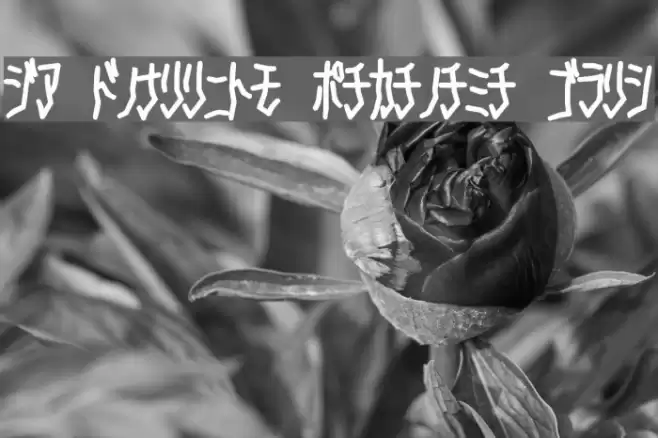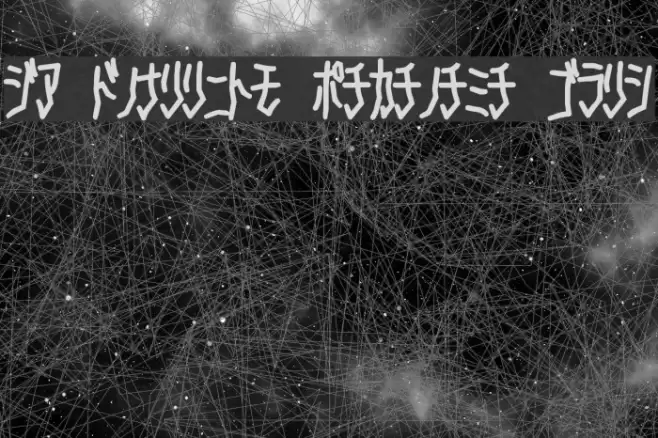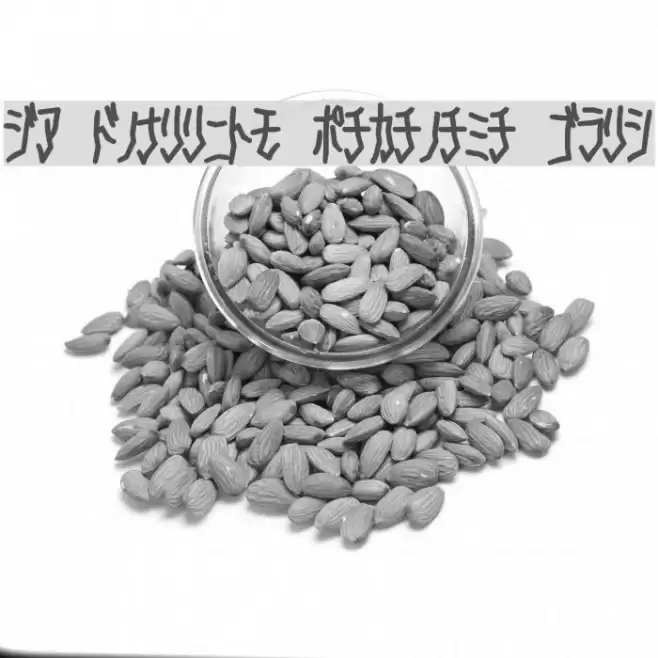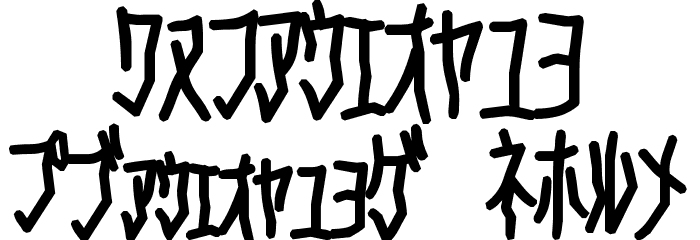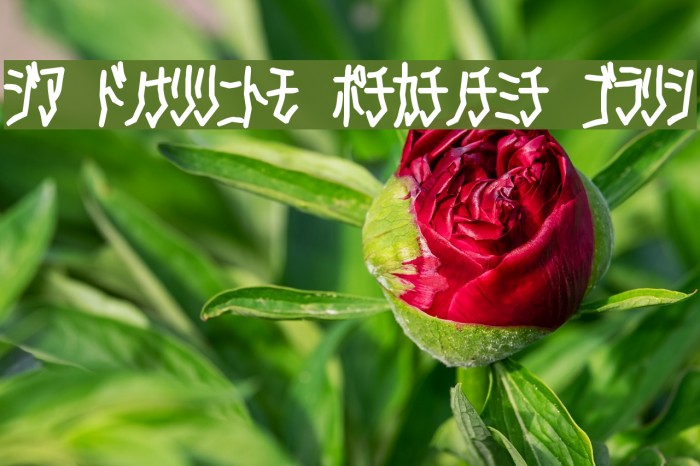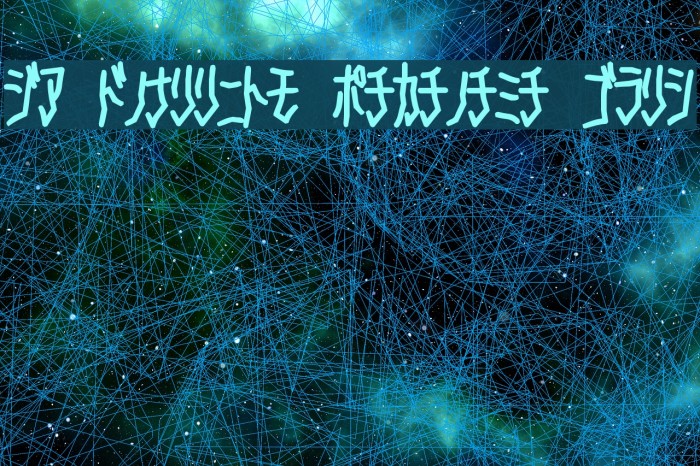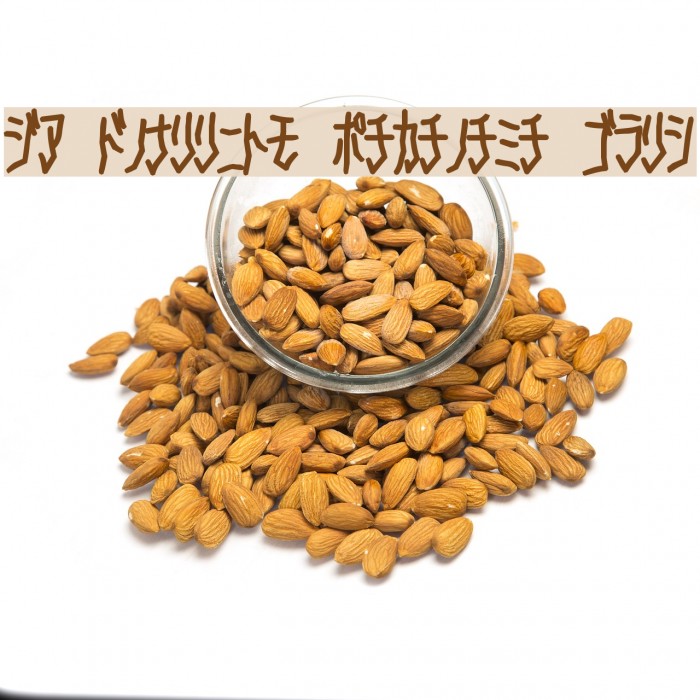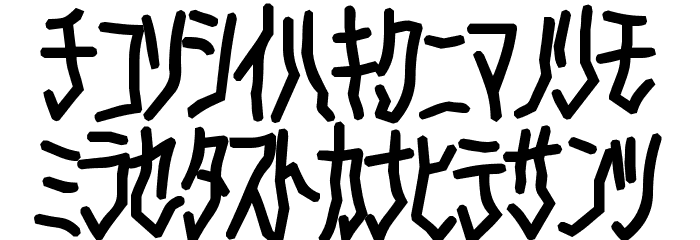
D3 Skullism Katakana Bold Font
D3 Skullism Katakana Bold Description
This font features a bold and edgy style, reminiscent of graffiti or street art. The characters are thick and angular, with a hand-drawn appearance that gives them a raw, energetic feel. The strokes are uneven, adding to the font's dynamic and rebellious character. Each letter is distinct, with sharp edges and a slightly chaotic arrangement, making it ideal for designs that require a bold statement. The font's unique style is particularly suited for creative projects that aim to capture attention and convey a sense of urban or alternative culture.
A bold, graffiti-inspired font with thick, angular strokes and a hand-drawn look from Capitals fonts.
- Proposed Projects: Ideal for street art designs, album covers, posters, and edgy branding projects.
- Overall Style: Urban, Edgy, Graffiti